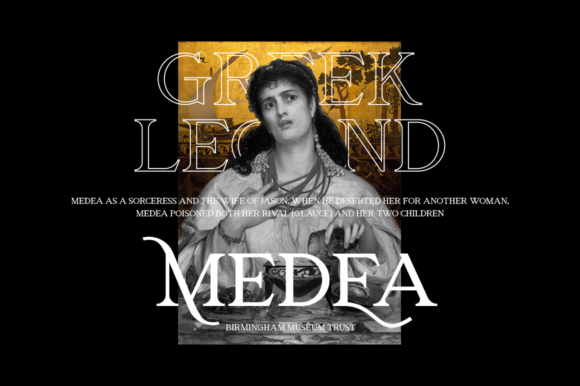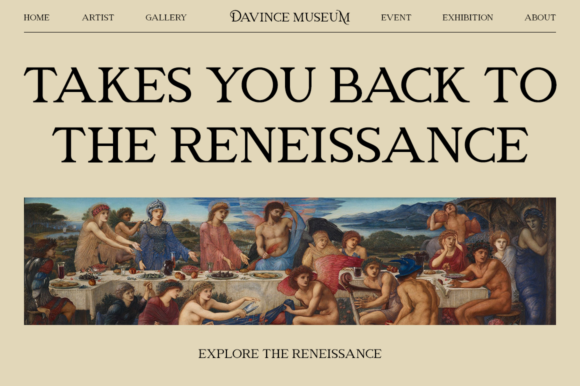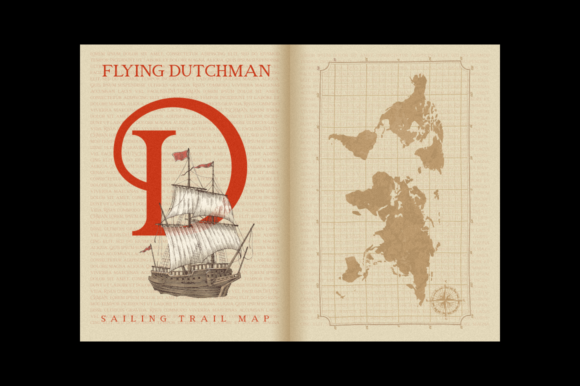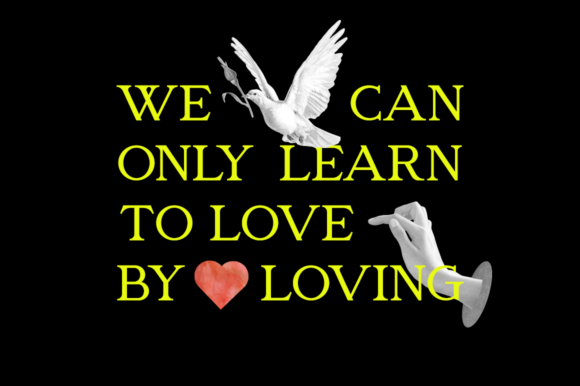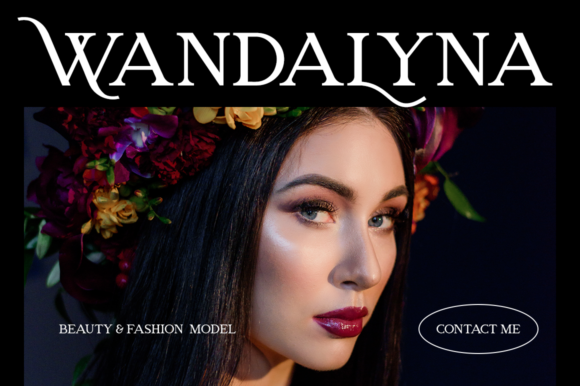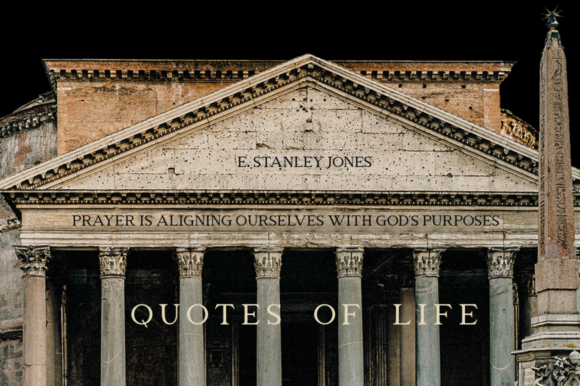
Introduction to Roman Greek Font
Roman Greek is an elegant and distinct serif font.
Suitable to a wide variety of designs due to its neat and simple style, this font has the potential to become your favorite go-to font, no matter the occasion .